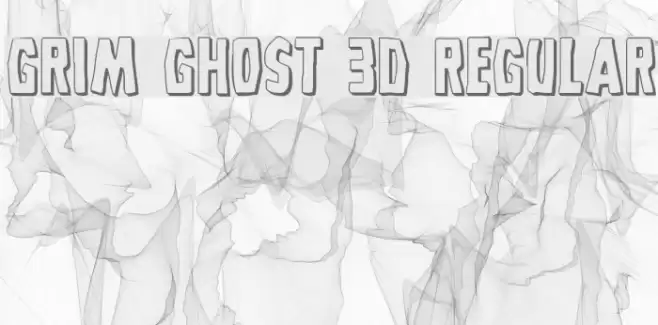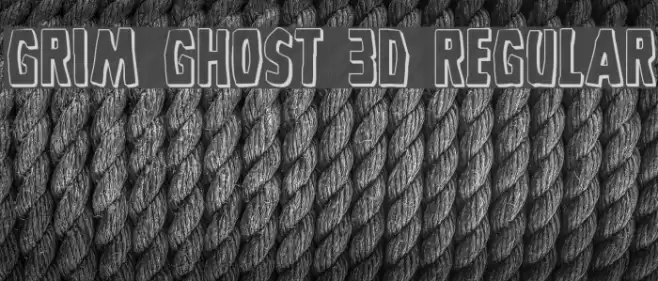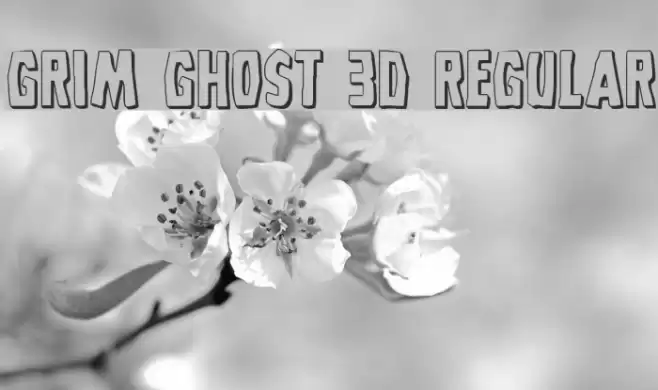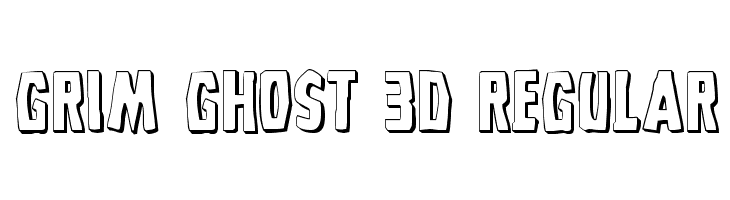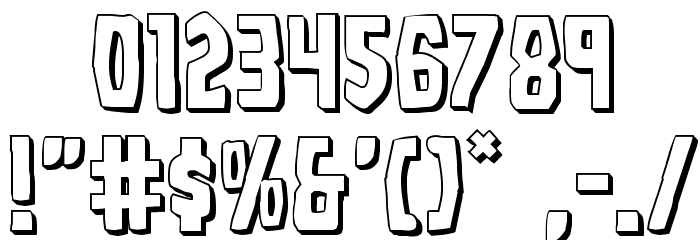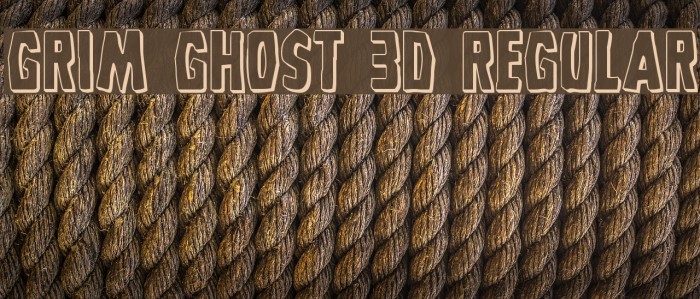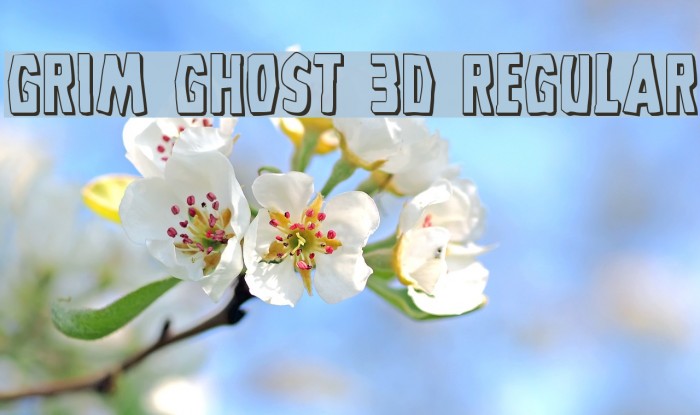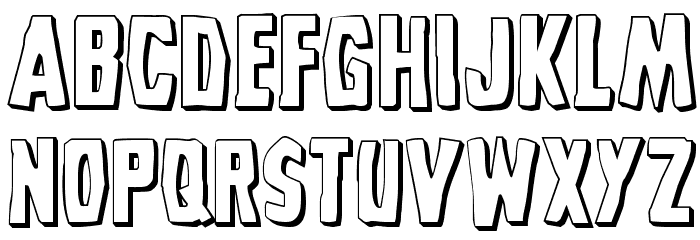
Grim Ghost 3D Regular Font
Grim Ghost 3D Regular Description
This font features a bold, three-dimensional design with a playful and slightly spooky aesthetic. The characters are outlined, giving them a shadowed effect that adds depth and dimension. The style is reminiscent of comic book lettering, with exaggerated angles and a hand-drawn feel. Each letter and number is distinct, with a consistent thickness throughout, contributing to its bold appearance. The font includes a full set of uppercase and lowercase letters, numbers, and a variety of special characters, making it versatile for different uses. Its unique style makes it ideal for projects that require a fun and eye-catching typeface.
A bold, 3D outlined font with a playful, comic book style from Uncategorized fonts.
- Proposed Projects: Ideal for comic books, Halloween-themed designs, posters, and playful branding.
- Overall Style: Playful, Comic, Decorative
- Use Case: Headlines, Posters, Branding